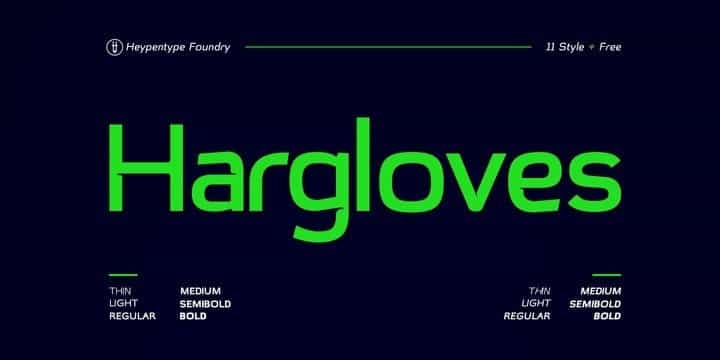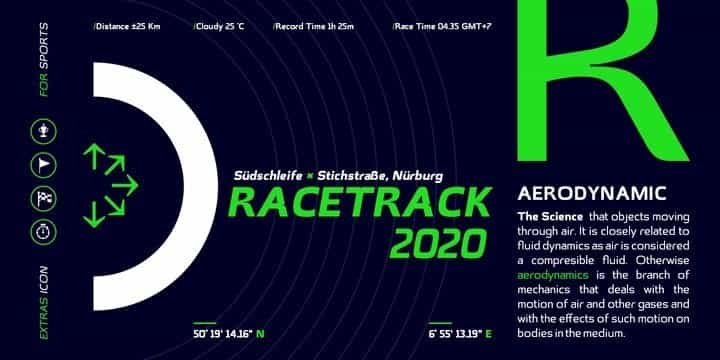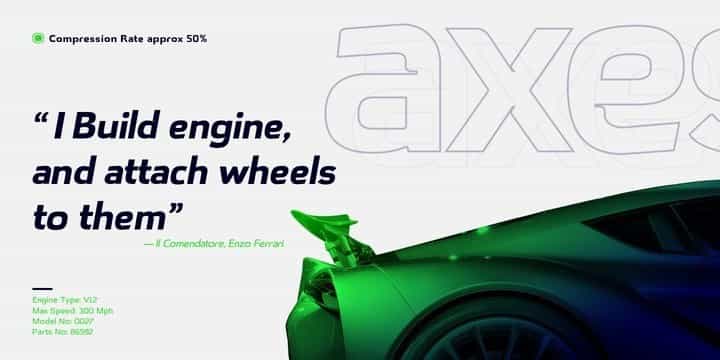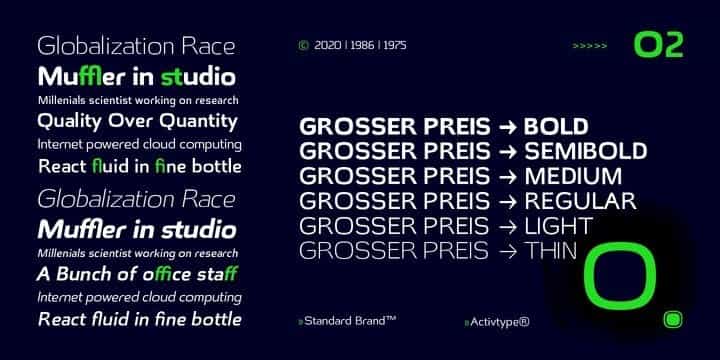
Hargloves is an Sans Serif font created with meticulously crafted. Six weights and styles of italic will allow users to create striking branding and designs. Hargloves Font is great for publishing, editorial branding, logos, advertising and corporate identity. It supports a variety of languages, including Extended Latin.